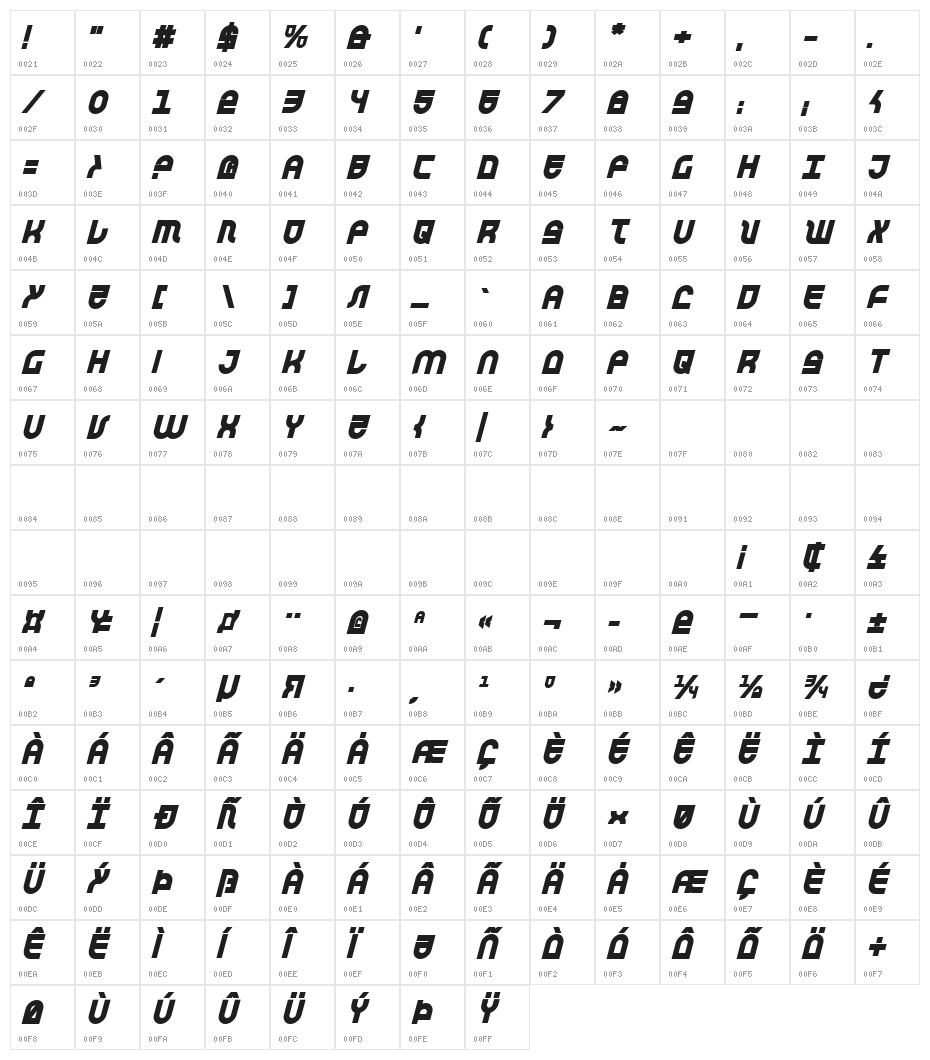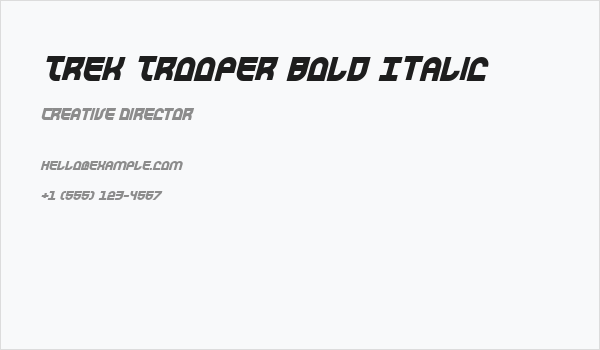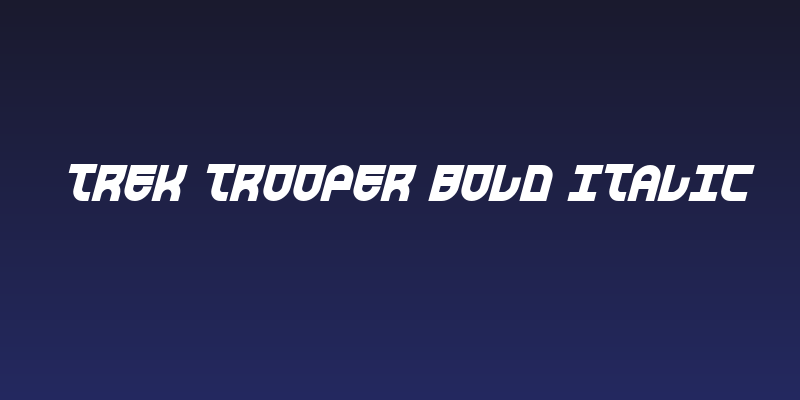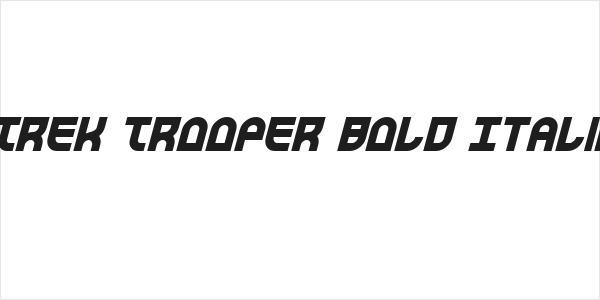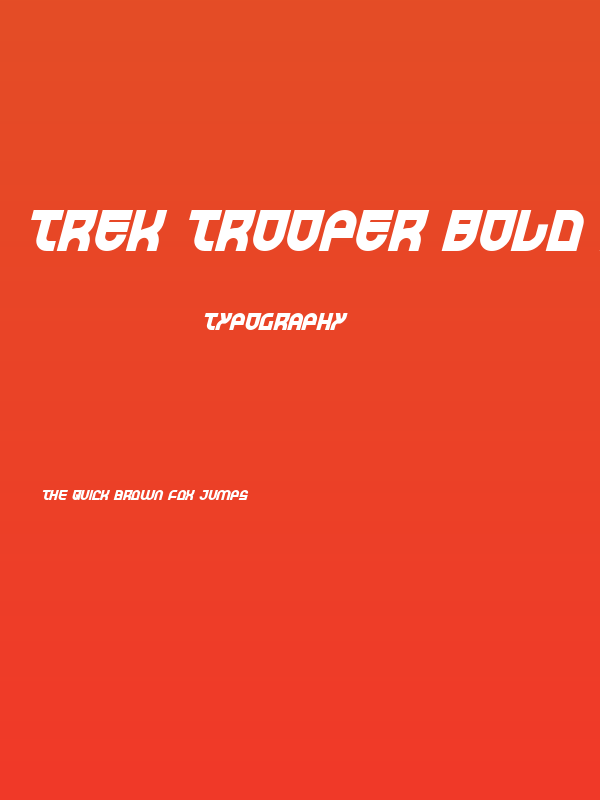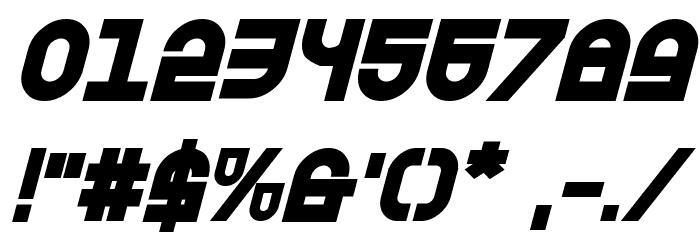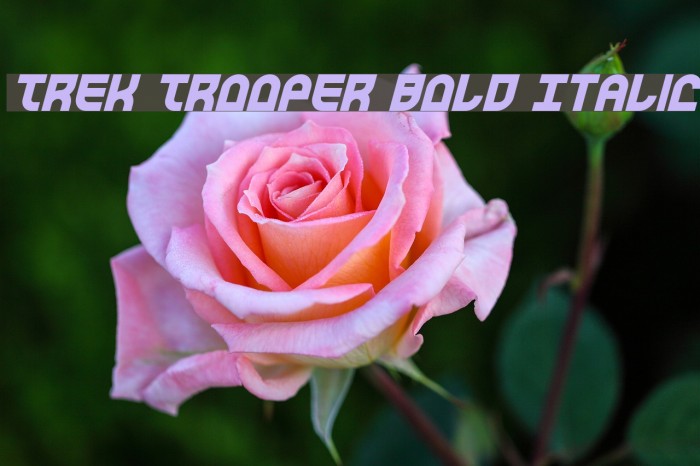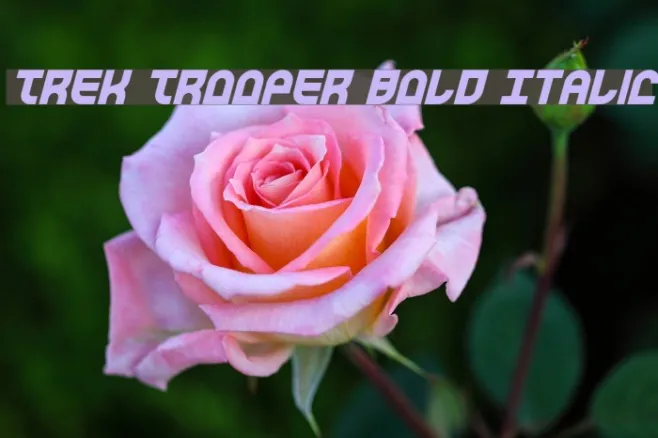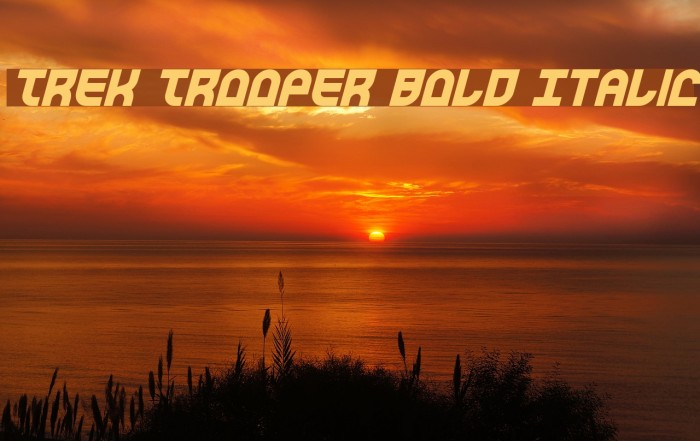
Trek Trooper Bold Italic Font
Trek Trooper Bold Italic Description
This font features a bold and italicized style with a futuristic and dynamic appearance. The characters are designed with a forward-leaning slant, giving a sense of motion and speed. The strokes are thick and consistent, providing a strong visual impact. The geometric shapes and sharp angles contribute to a modern and edgy look, making it suitable for attention-grabbing designs. The uppercase and lowercase letters maintain a uniform style, ensuring readability while adding a unique flair. The numbers and special characters are crafted to match the overall aesthetic, offering versatility in various design contexts.
| Proposed Projects | Ideal for sci-fi themed projects, video game titles, movie posters, and branding for tech companies. |